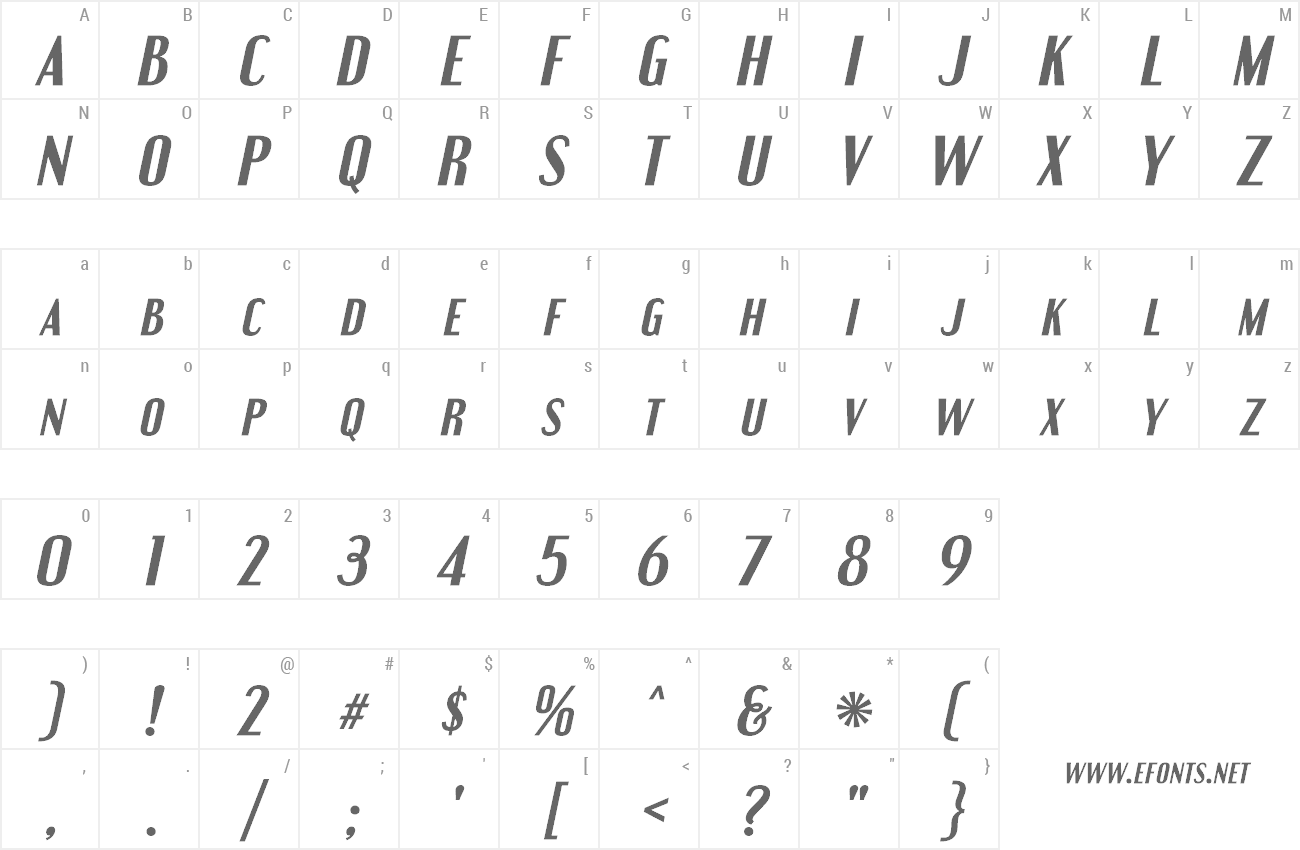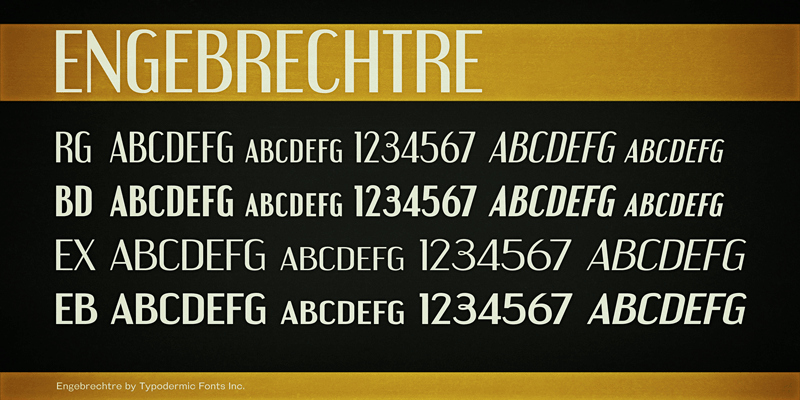
Engebrechtre is a gonzo-historical early 20th Century stressed sans created in 2000. The original Engebrechtre Regular was pretty passable, I guess, but the bold and expanded styles were clearly beyond my technical abilities a dozen years ago. This time. I scrapped all but the regular weight and started all over. There’s new spacing, new kerning and web-friendly horizontal precision. The original S was a bit clunky so I’ve drawn the new one with a bit more grace. Accents have been redesigned and more languages are supported. The italics have round dots, not slanted dots . . . a detail I’d missed in the previous version. There are more math symbols, fractions and numeric ordinals too. There’s a new @ symbol as well as the new Indian rupee symbol. Vertical metrics have been optimized for better web performance. These fonts include a license that allows free commercial use: sometimes referred to as a desktop license. This allows you to install the fonts on a computer and use them to create posters, web graphics, game graphics, t-shirts, videos, signs, logos and more. Read the license agreement for details. If you'd like to embed these fonts in an app, ebook, on the web or anything that's not covered by the desktop license agreement, visit the link below. You'll find distributors who offer different types of licenses or you can contact me for help. http://typodermicfonts.com/engebrechtre/ |